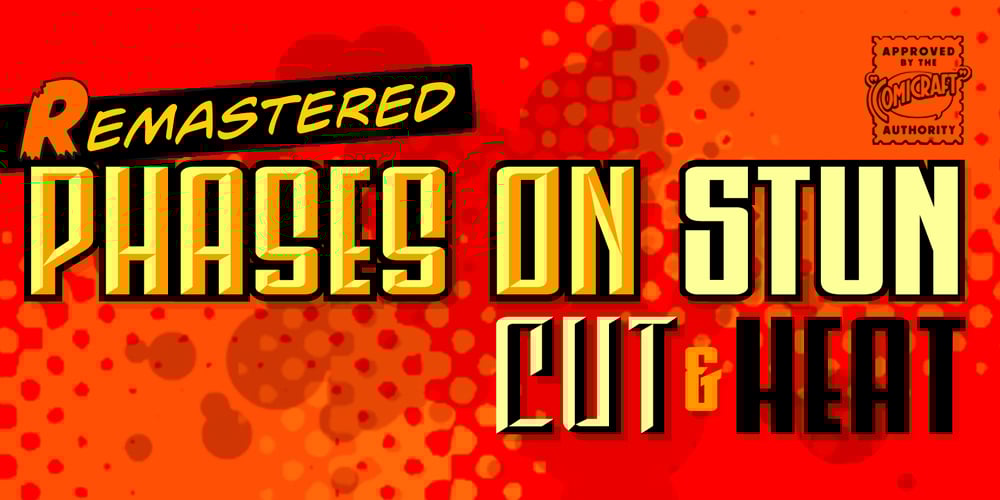
Phases On Stun
Phases On Stun font
Phases On Stun Font Family was designed by John Roshell and published by Comicraft. Phases On Stun contains 4 styles and family package options. Boldly splitting infinitives that no man, woman, peron or non-person has split before, Phases On Stun comes in peace but will shoot to kill, because redshirts cannae change the laws of physics.